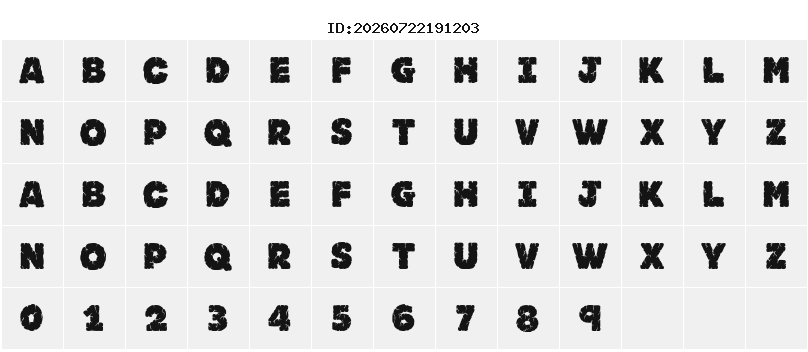
JFRockSolid Preview
• Font Name: JFRockSolid
• Designer: J F Slater
JFRockSolid.ttf is a modern, elegant sans-serif font designed for ultimate readability and visual harmony. Perfect for branding, headlines, web design, and print materials.